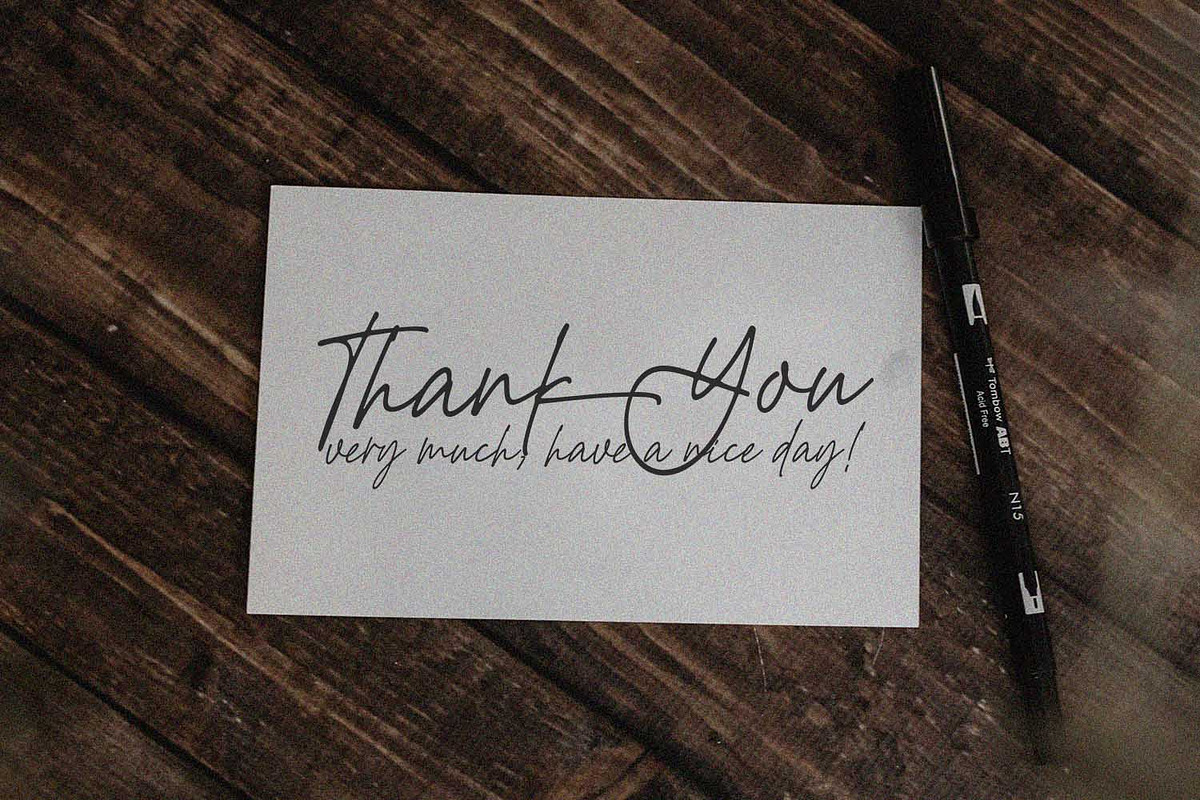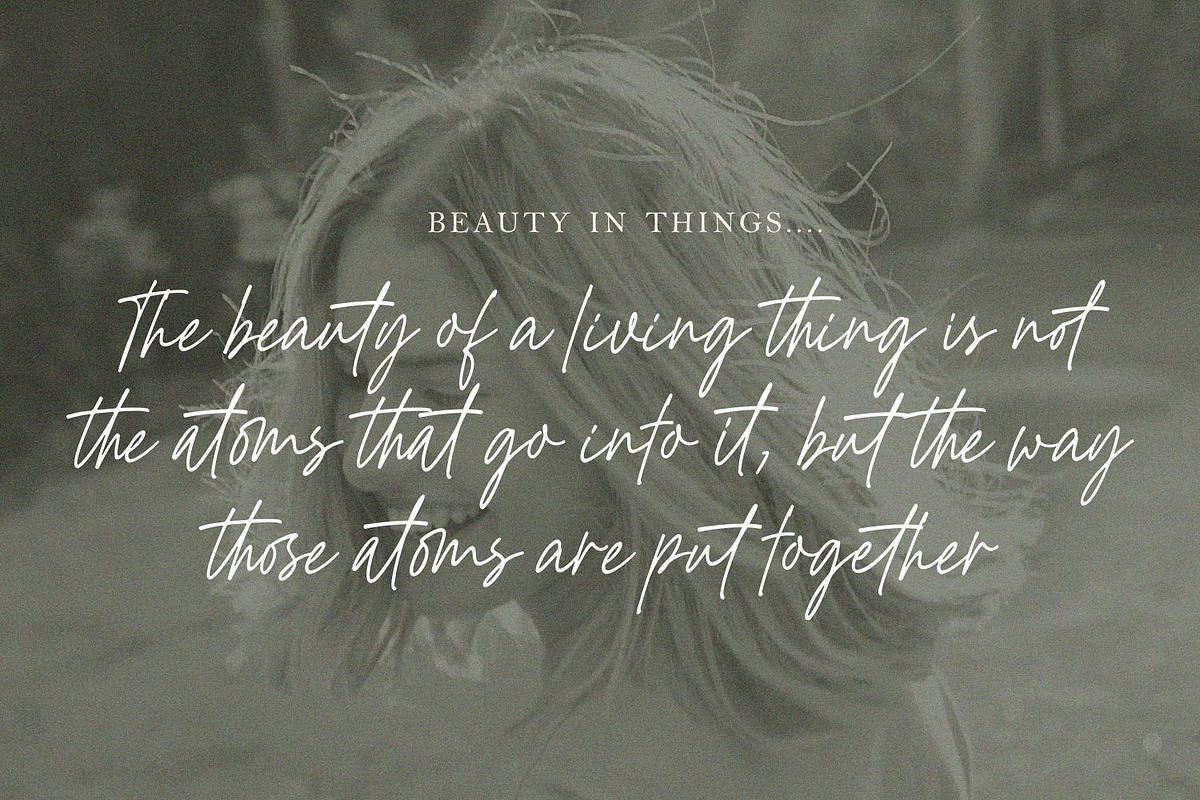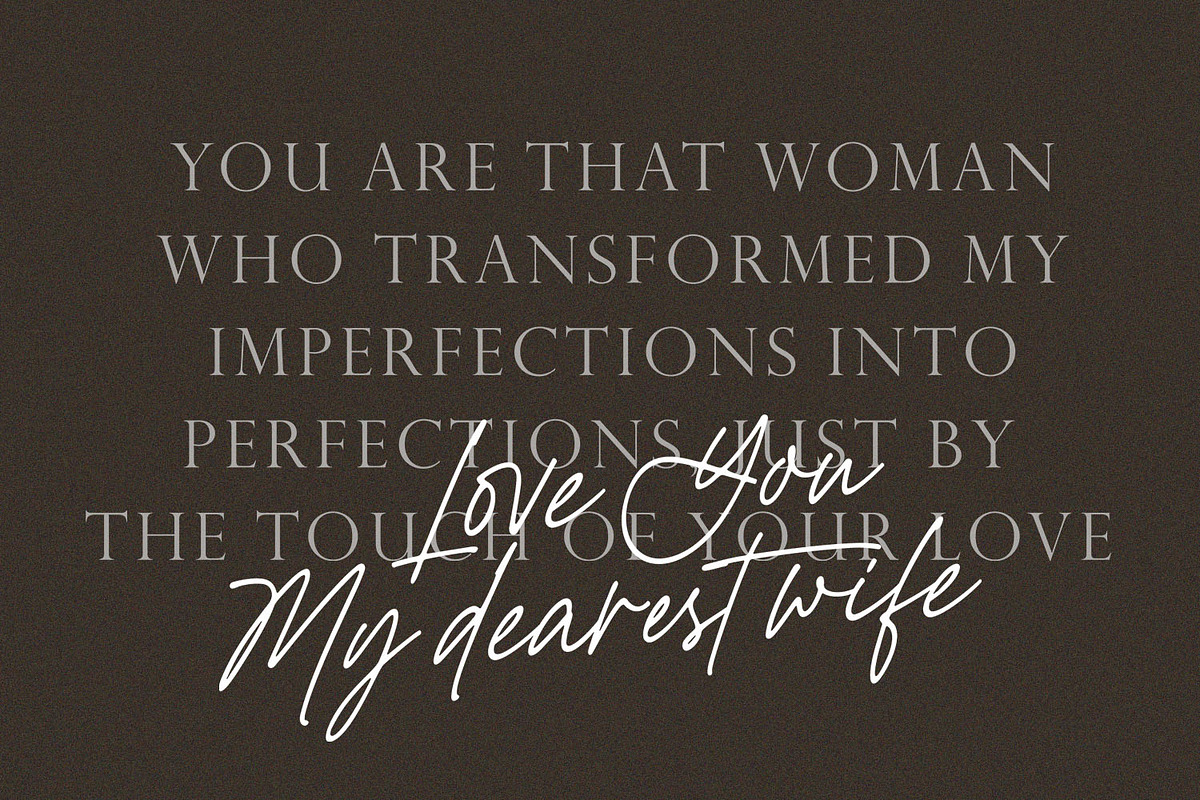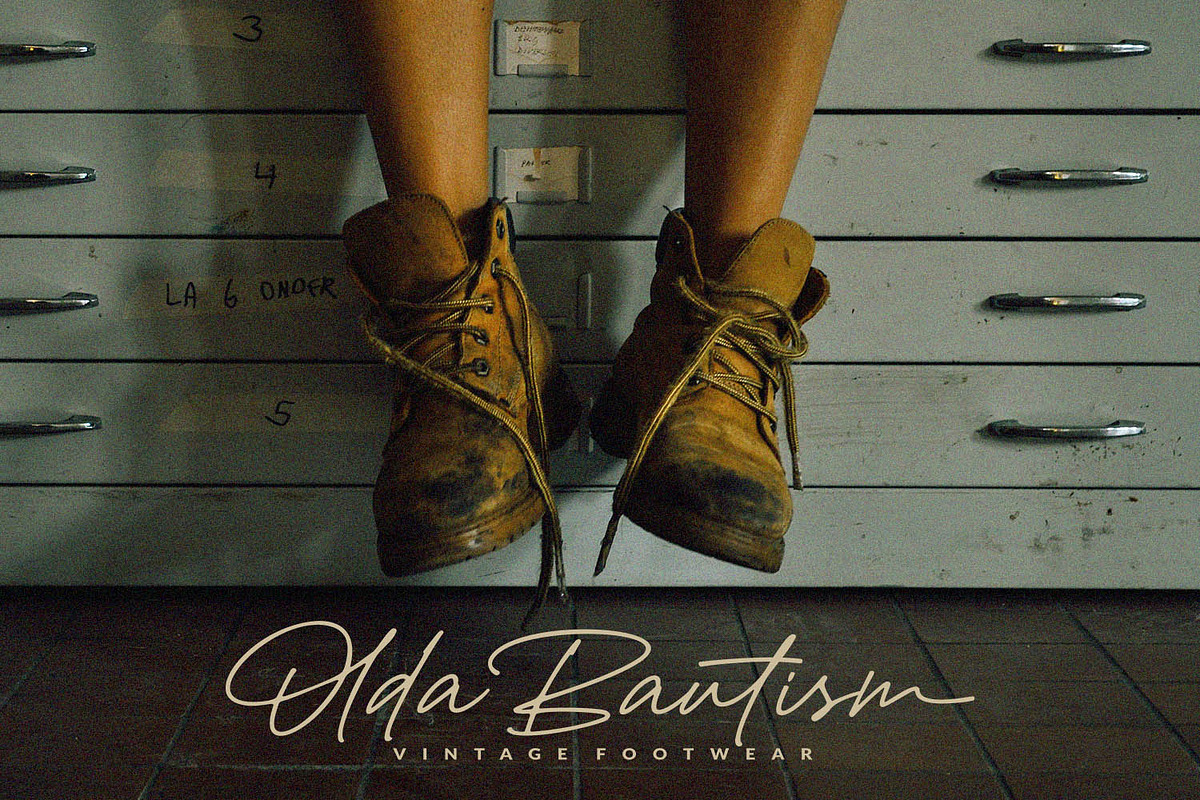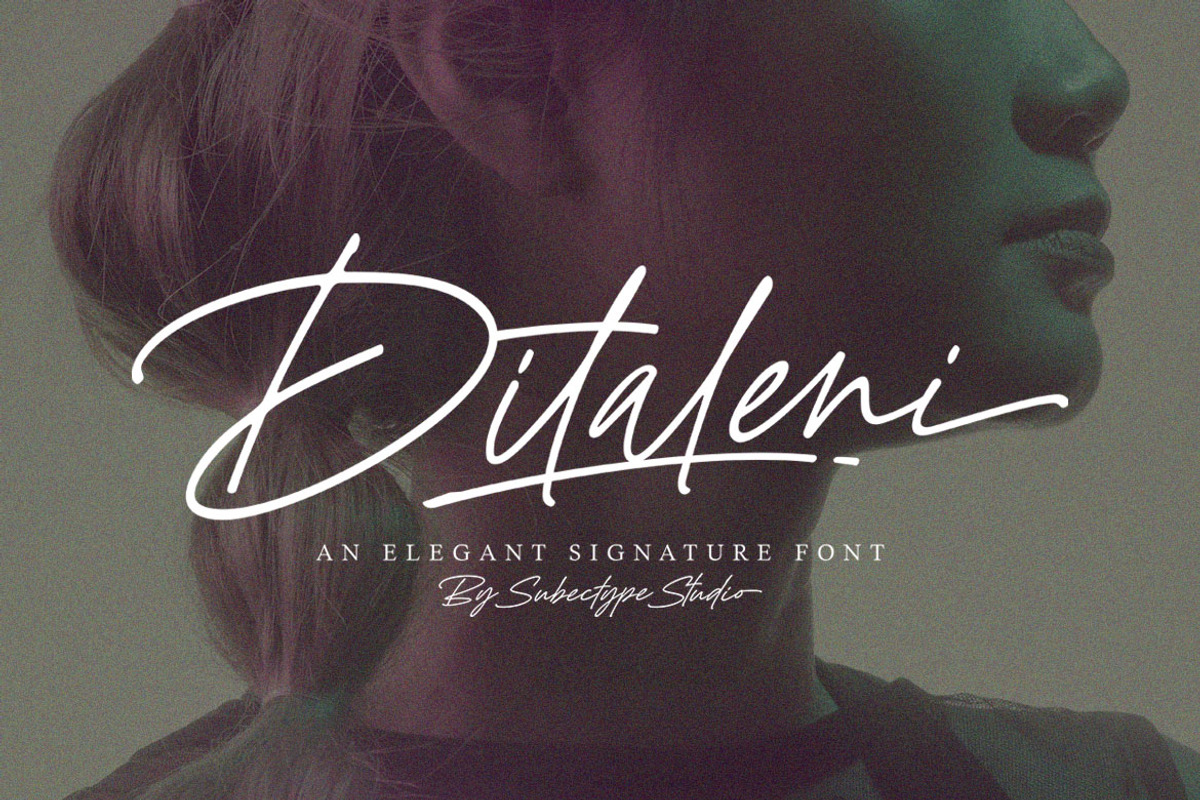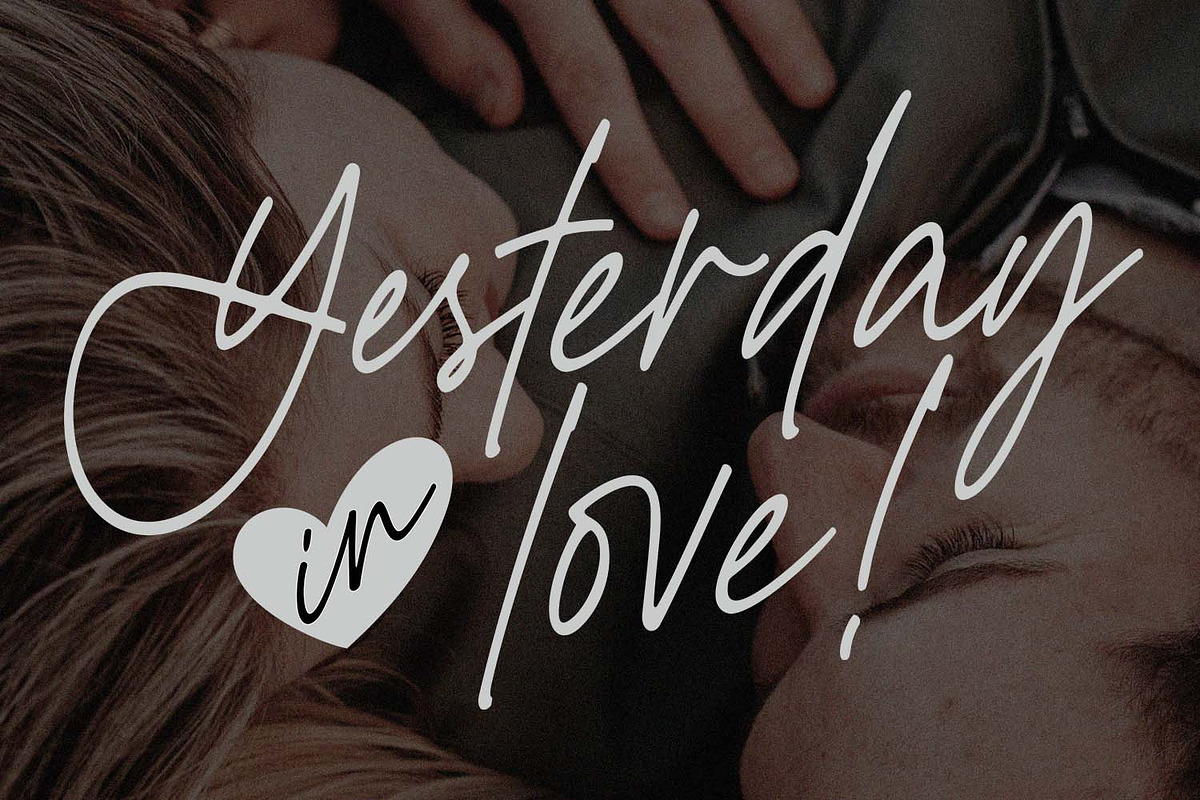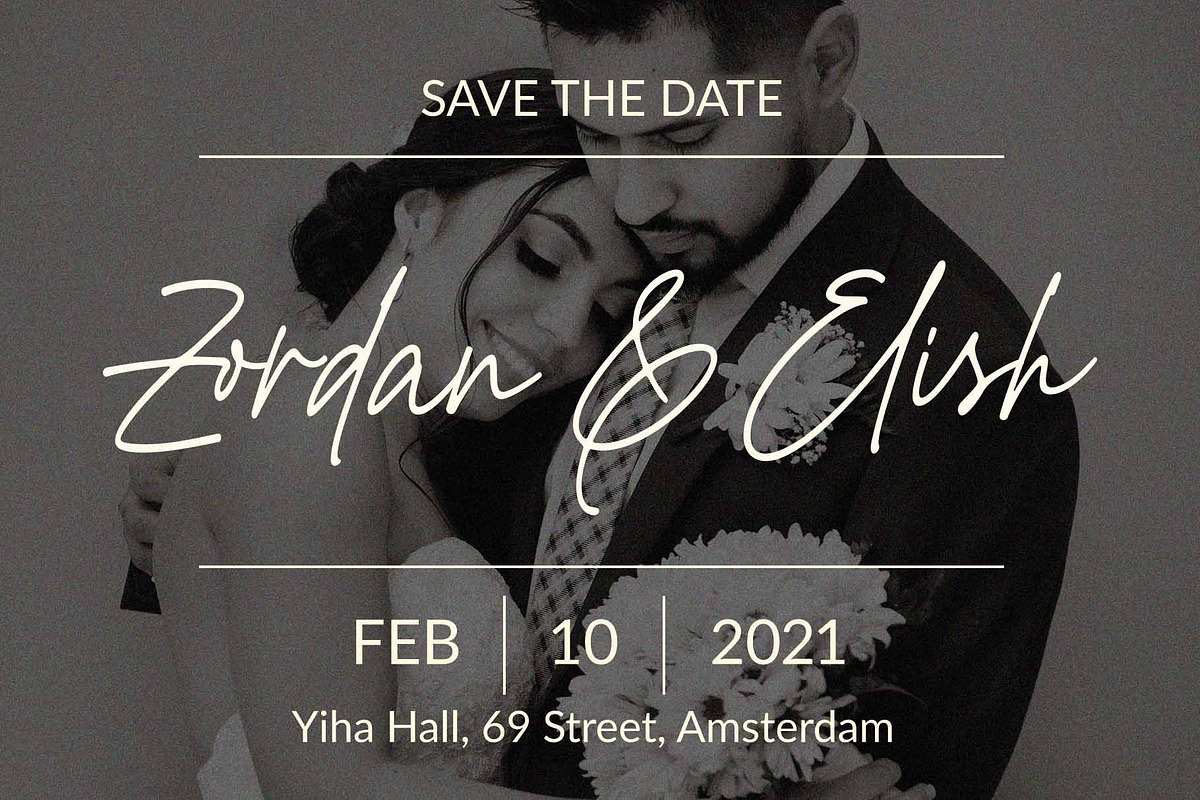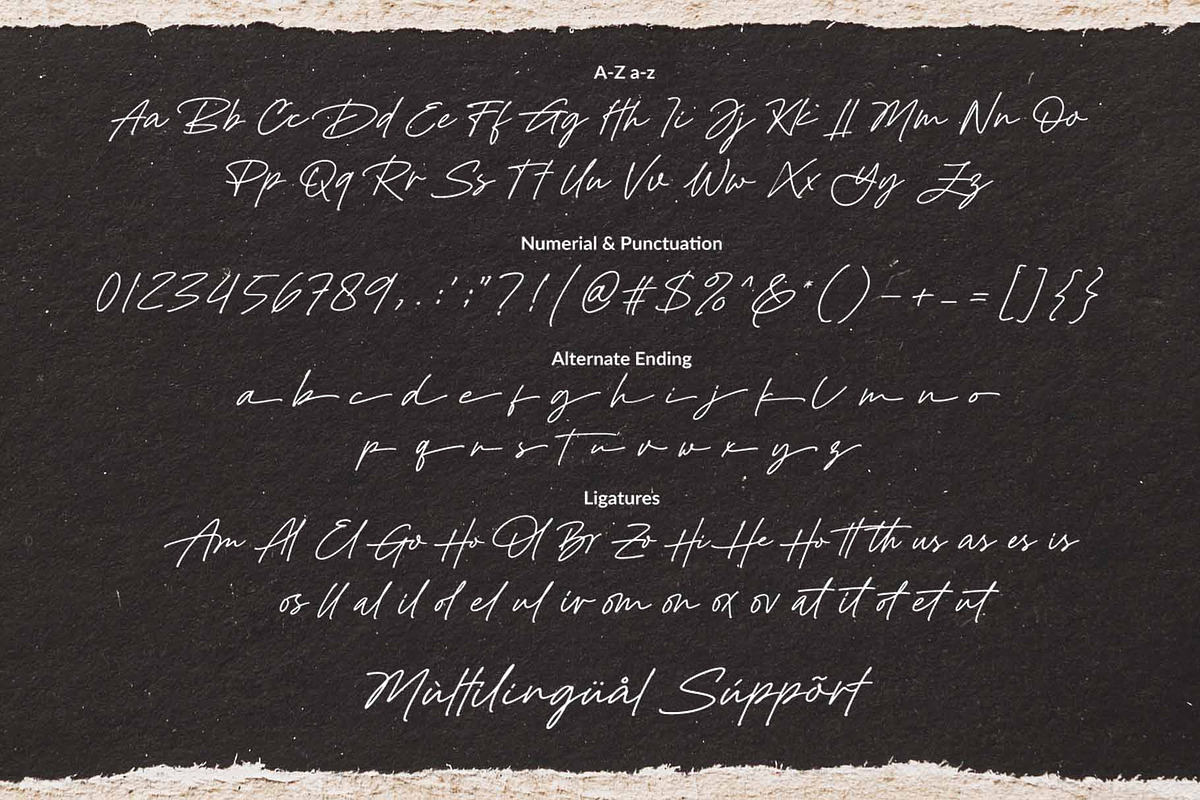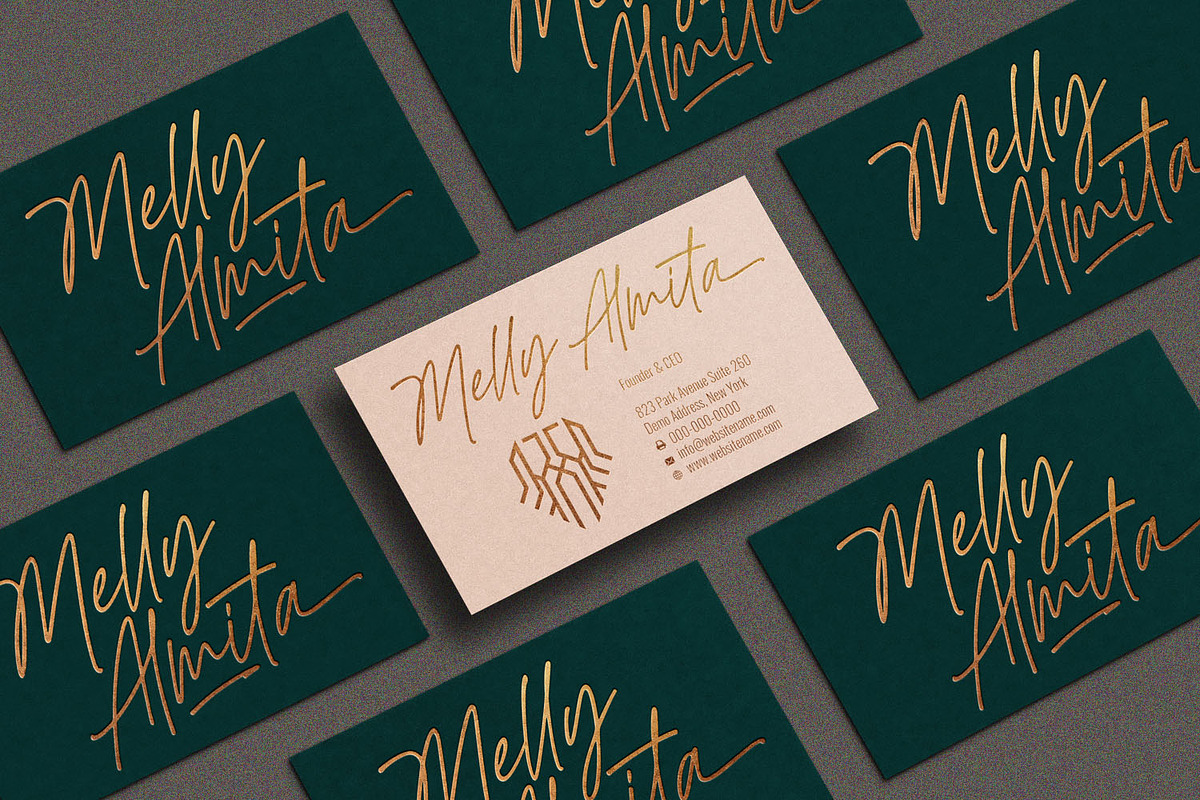
Ditaleni - An Elegant Signature Font
Ditaleni is an elegant signature font with with a touch of handwriting style. this font is perfect for creating signature logos and watermarks for photography studio or wedding invitation.
Ditaleni includes full set of beautifull hand lettered uppercase and lowercase letters, numerals, a large range of punctuation and many beautiful ligatures.
it has an extensive lingual support, covering European and Asian Latin scripts. The font contains all characters you'll ever need, including all punctuation and numbers.